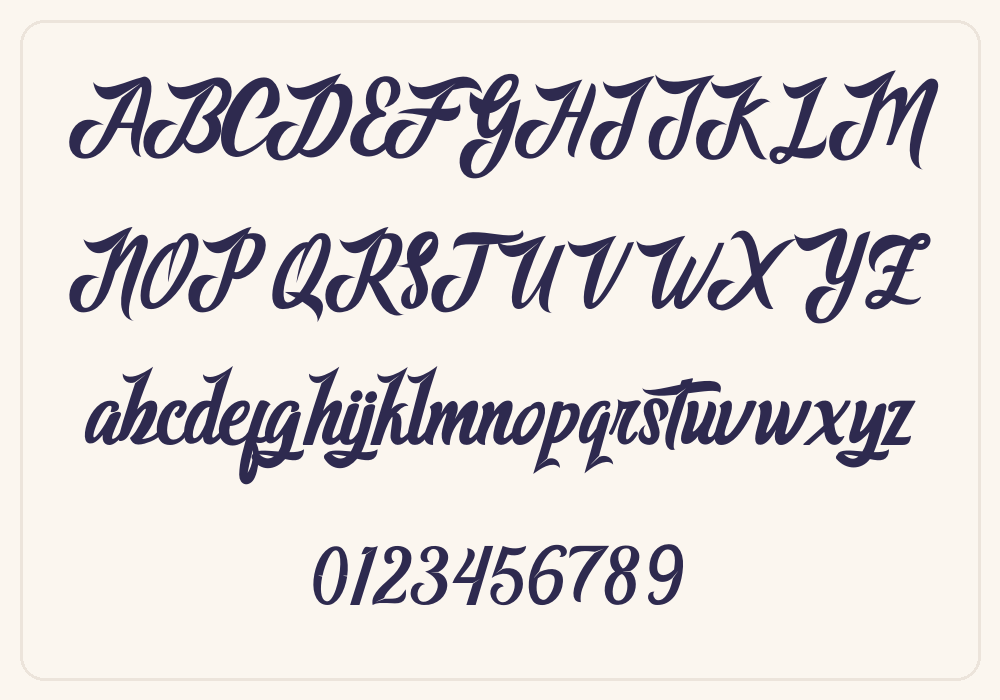
Beautiful Script
Script font for quotes, logos and signatures — free for commercial use.
Hand-lettered style for branding and packaging — free for commercial use.